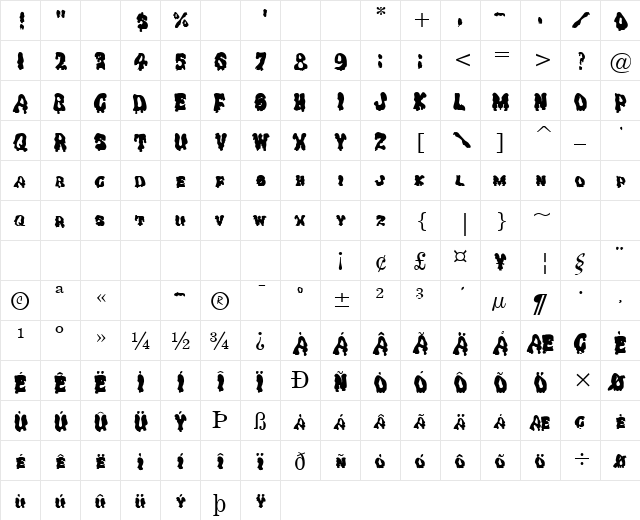
Gremlin Solid
Design Context for Gremlin Typeface
Gremlin is a composed and adaptable typeface that performs quietly and consistently across a wide range of design contexts.